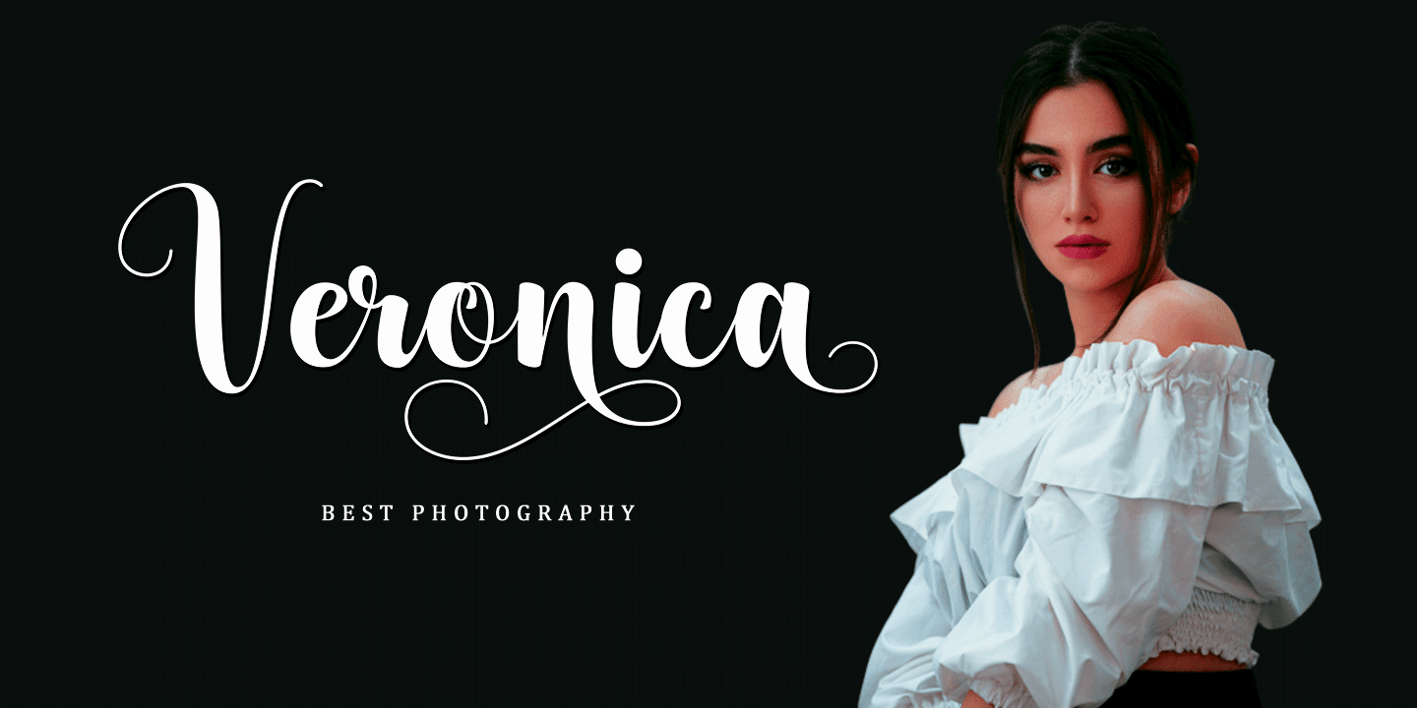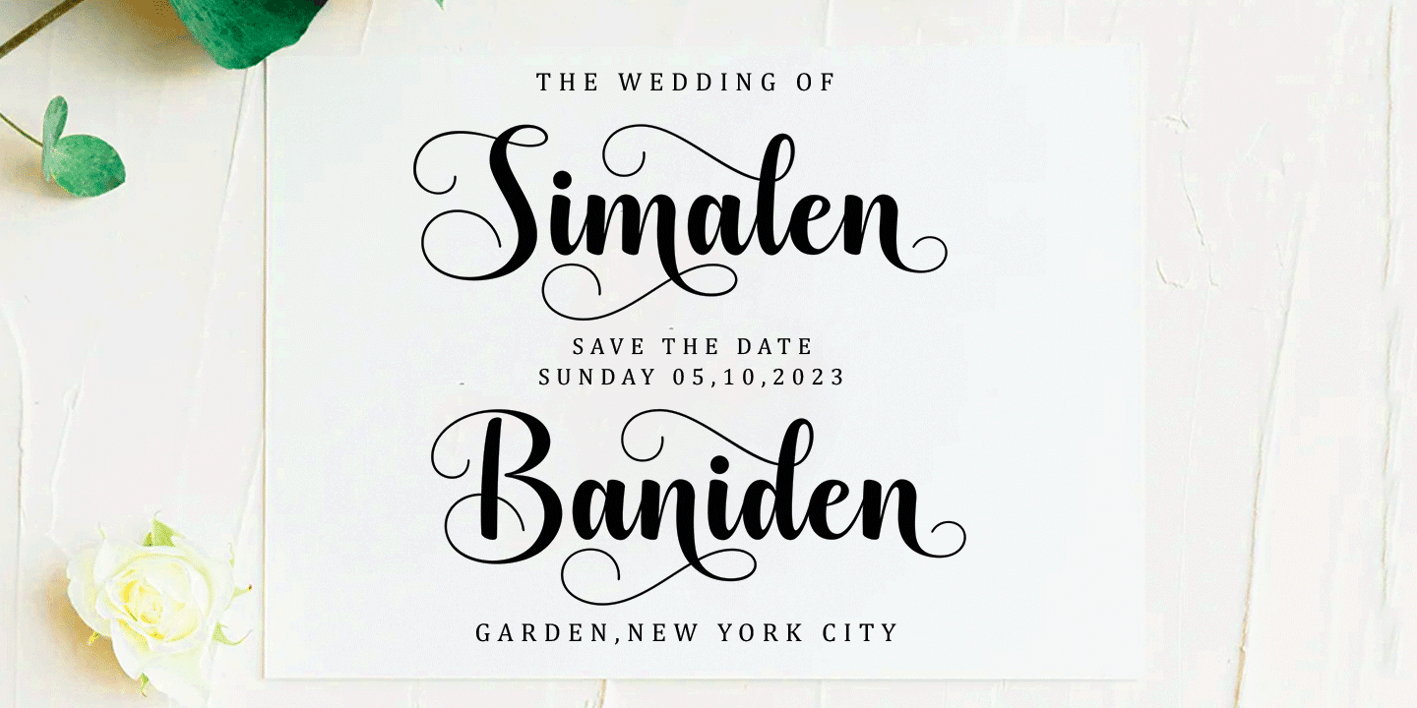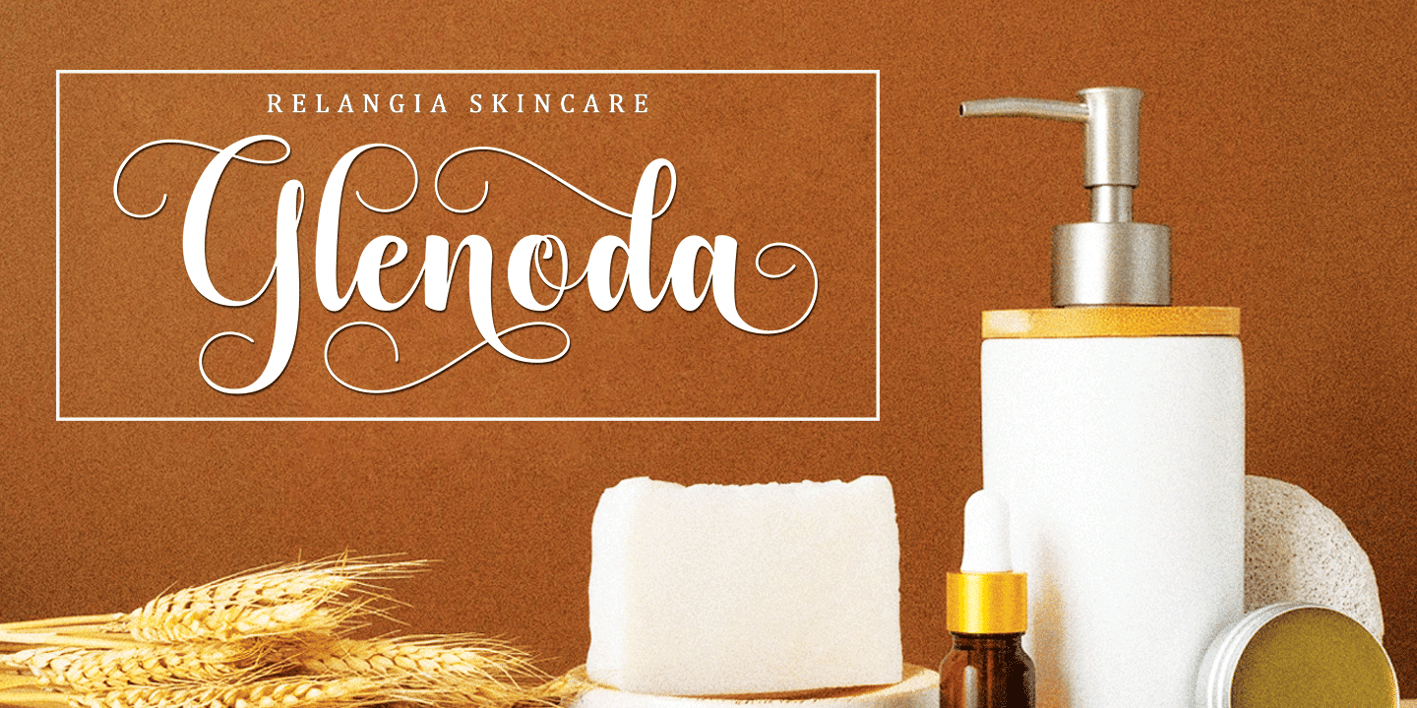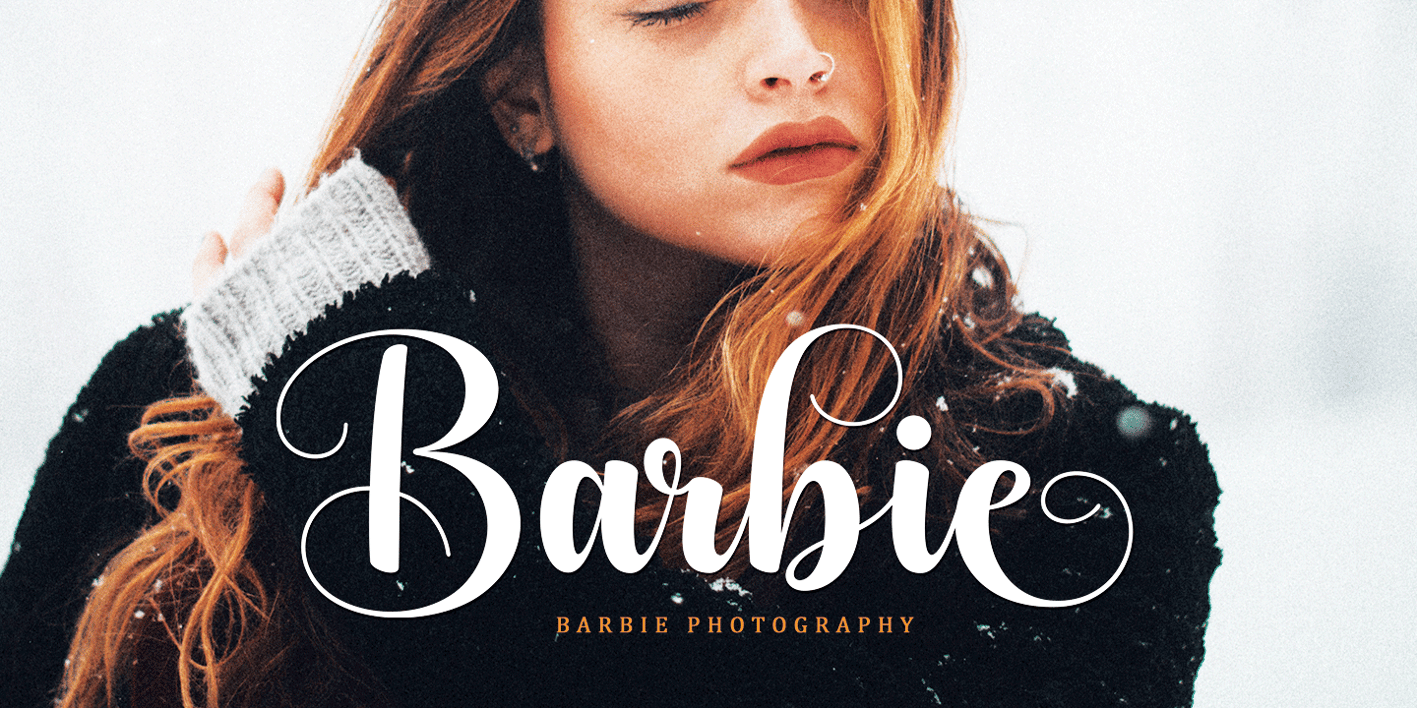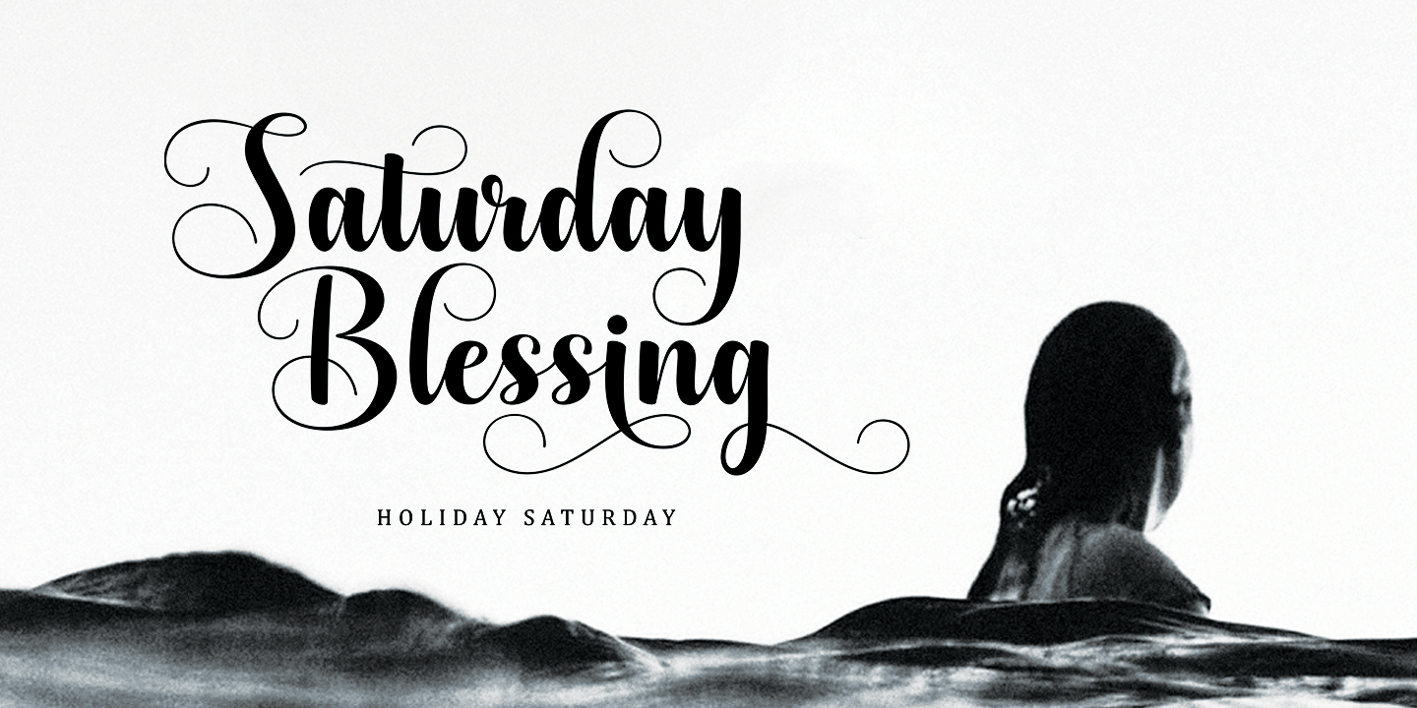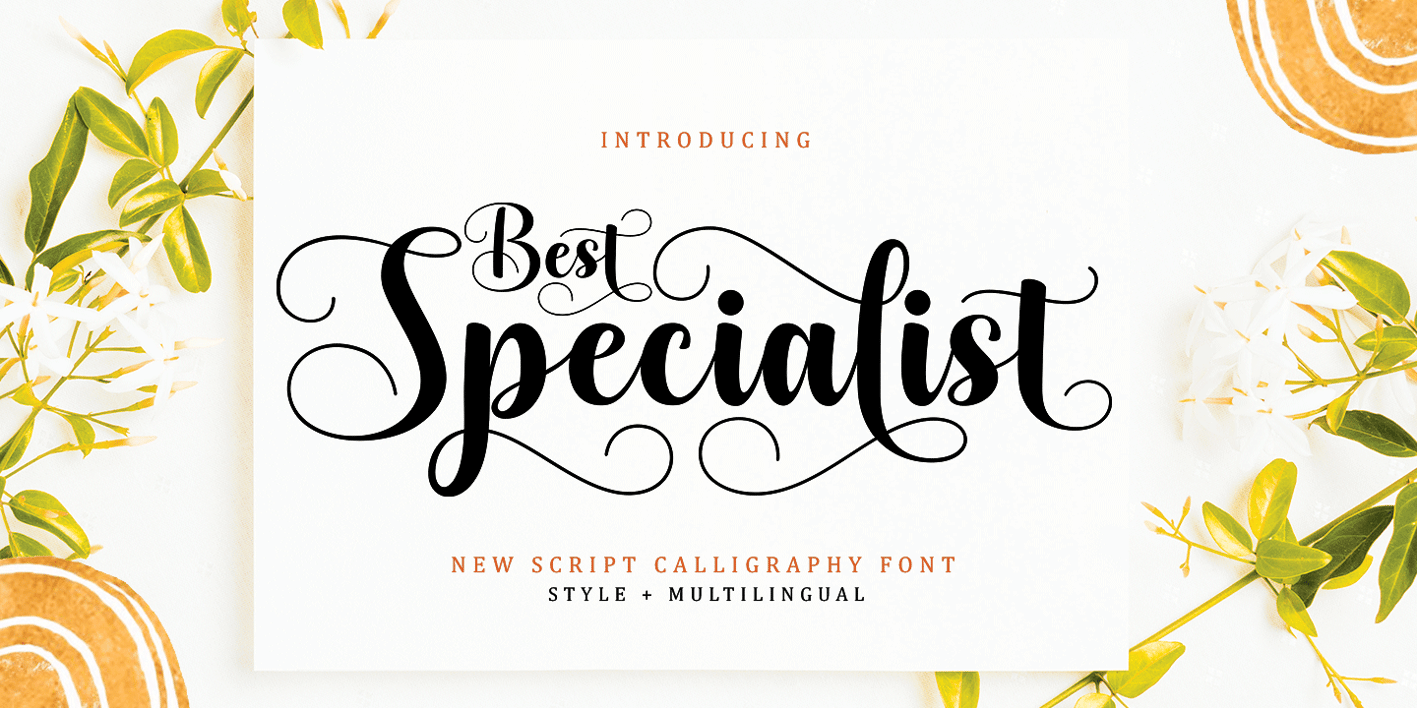
Best Specialist Font
Balegad Script Font is a very classic, elegant and unique script font. Expertly designed to become a true favorite, this font has the potential to take your creative ideas to the highest level!